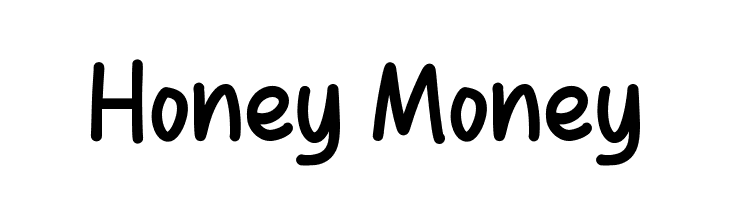
A bold, geometric font with a modern, artistic flair and unique cut-out patterns.
A bold, playful font with rounded, bubbly characters and a whimsical style.
A playful, retro font with bold, rounded characters and a groovy 60s vibe.
A playful, bold font with rounded, bubbly characters and a retro-modern vibe.
A bold, playful font with rounded strokes and a whimsical appearance.
A bold, high-contrast font with dynamic curves and artistic flair.
A bold, geometric font with dynamic and artistic design elements.
A bold, three-dimensional font with a strong, shadowed appearance.
A bold, angular font with a futuristic and dynamic style.
A bold, playful font with rounded, bubbly characters.
A bold, playful font with a retro and whimsical design.
A bold, retro-inspired font with high contrast and playful, stylized characters.
A bold, geometric font with high contrast and decorative elements.
A playful, bold outline font with rounded edges and a friendly appearance.
A bold, rounded font with a playful and modern style.
A bold, playful font with rounded, bubbly characters.
A bold, dynamic font with artistic flair and striking visual impact.
A playful, bold font with rounded, bubbly characters.
A bold, geometric font with rounded shapes and a playful, modern style.
A bold, playful font with rounded, bubble-like characters.
A bold, rounded font with a playful 1970s vibe.
A bold, geometric font with a modern and futuristic style.
A bold, decorative font with a vintage charm and intricate detailing.
A bold, dynamic font with sharp and curved elements for striking visual impact.
A bold, playful font with retro, rounded letterforms.
A bold, geometric font with a strong visual impact and playful style.
A bold, playful font with whimsical, rounded characters.
A bold, rounded font with a strong and playful presence.
A playful, hand-drawn font with rounded edges and a whimsical style.
A bold, playful font with rounded, bubbly characters and a friendly aesthetic.
A playful, bold font with rounded, bubbly characters.
A bold, playful font with thick, rounded characters and a whimsical style.
A bold, playful font with thick, rounded strokes and a bubbly appearance.
( Fonts by aannasou )
A playful, bold font with rounded, bubbly letterforms and a retro vibe.